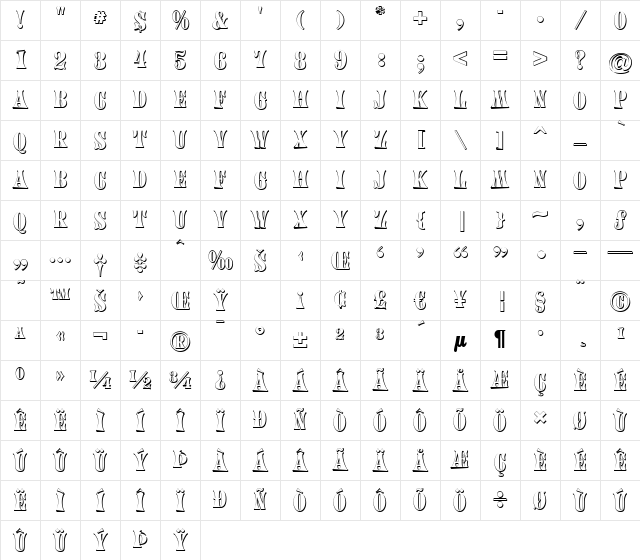
Complete a_Calyx3Dxtr Regular glyph index. Displaying only characters natively supported by a_Calyx3Dxtr Regular font.
a_Calyx3Dxtr is a composed and adaptable typeface that performs quietly and consistently across a wide range of design contexts.